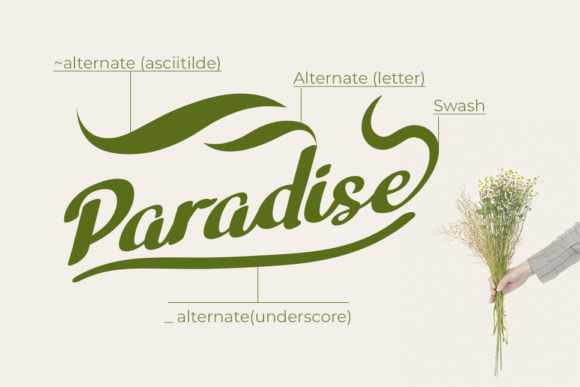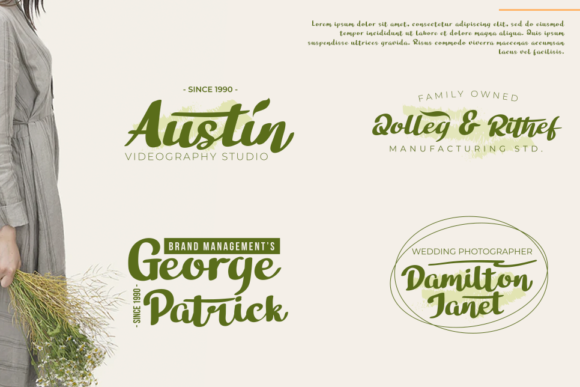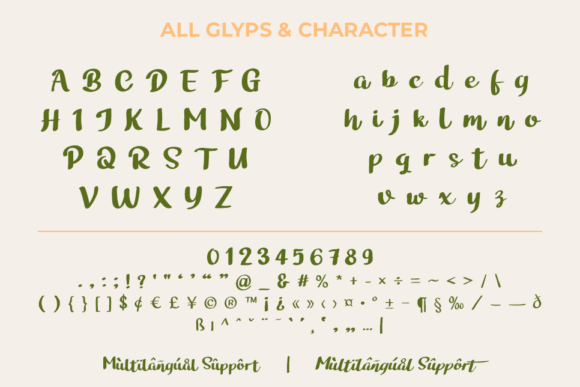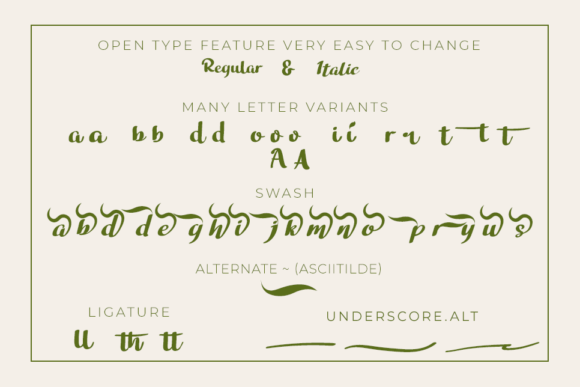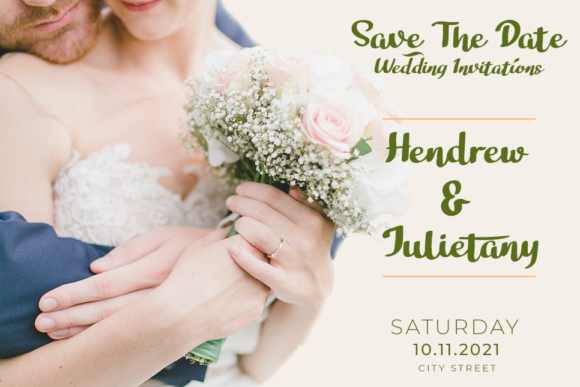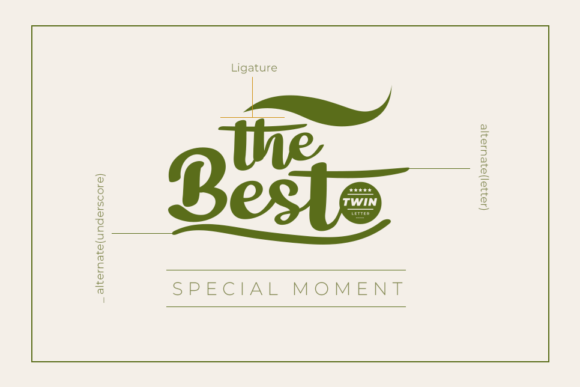
Bathi Font: Elevate Your Designs with Authentic Elegance
In the world of typography, a well-crafted font can make all the difference in elevating your designs from ordinary to extraordinary. Introducing Bathi Font, an authentic yet casual handwritten font that is sure to capture the hearts of designers and crafters alike. Created using a brush pen, Bathi Font exudes a sense of elegance and sophistication, making it perfect for a wide range of design projects.
The Unique Charm of Bathi Font
Bathi Font boasts a distinctive, handcrafted look that sets it apart from more traditional fonts. Its casual, handwritten feel makes it an excellent choice for designs that require a personal touch. Whether you’re working on a book title, quote, cover, or logo, Bathi Font is sure to add a touch of authenticity and charm. The font’s versatility extends to various design applications, including posters, wedding invitations, and paragraph content.
Design Possibilities with Bathi Font
One of the most significant advantages of Bathi Font is its adaptability. This beautiful font can be used in both formal and informal projects, making it an excellent addition to any designer’s toolkit. Here are some design possibilities where Bathi Font truly shines:
- Book Titles and Covers: Give your book titles and covers a professional, eye-catching look with Bathi Font. Its elegant, handwritten feel is sure to grab the attention of potential readers.
- Quotes and Posters: Add a touch of sophistication to your quotes and posters with Bathi Font. Its casual yet refined look makes it perfect for sharing inspiring messages and showcasing your artwork.
- Logos and Branding: Create a lasting impression with Bathi Font, ideal for crafting unique logos and branding materials. Its distinctive look will help your brand stand out in a crowded market.
- Wedding Invitations: Make your wedding invitations truly special with Bathi Font. Its elegant, handwritten feel adds a romantic touch to your wedding stationery.
- Paragraph Content: Use Bathi Font to add a personal touch to your paragraph content. Its readability and style make it perfect for blog posts, articles, and website content.
Why Choose Bathi Font?
With so many fonts available, why choose Bathi Font for your design projects? Here are a few compelling reasons:
- Authentic and Elegant: Bathi Font offers an authentic, elegant look that is sure to elevate your designs.
- Versatile: This font is suitable for a wide range of design applications, from formal to informal projects.
- Easy to Read: Bathi Font is designed to be highly readable, making it perfect for paragraph content and quotes.
- Unique and Handcrafted: The font’s handcrafted look sets it apart from more traditional fonts, adding a personal touch to your designs.
Tips for Using Bathi Font Effectively
To get the most out of Bathi Font, here are some tips for using it effectively in your design projects:
- Pair with Other Fonts: Experiment with pairing Bathi Font with other fonts to create visually appealing combinations.
- Adjust Font Size: Adjust the font size to create visual hierarchy and emphasize important information.
- Use Color Wisely: Choose colors that complement the elegant, handwritten feel of Bathi Font.
- Experiment with Styles: Don’t be afraid to experiment with different styles, such as bold, italic, or underlined text, to add emphasis and create visual interest.
In conclusion, Bathi Font is an exceptional addition to any designer’s toolkit. Its authentic, elegant look and versatility make it perfect for a wide range of design projects, from formal to informal applications. With its unique, handcrafted feel and readability, Bathi Font is sure to elevate your designs and leave a lasting impression on your audience. So why wait? Download Bathi Font today and discover the world of possibilities it offers!